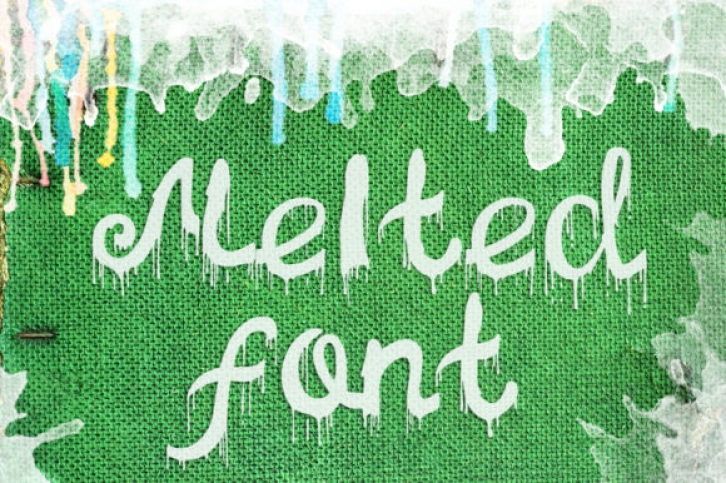
Melted is a cool and whimsical stained handwritten font. It is defined by smooth curves and is perfect for fashion branding or editorial designs. Add it confidently to your projects, and you will love the results.